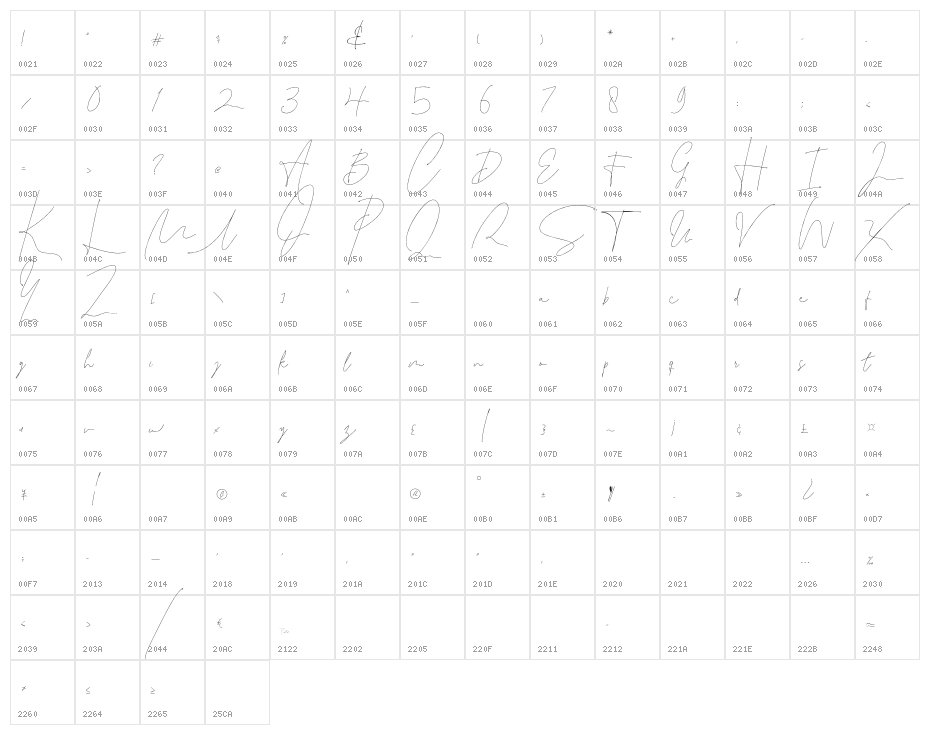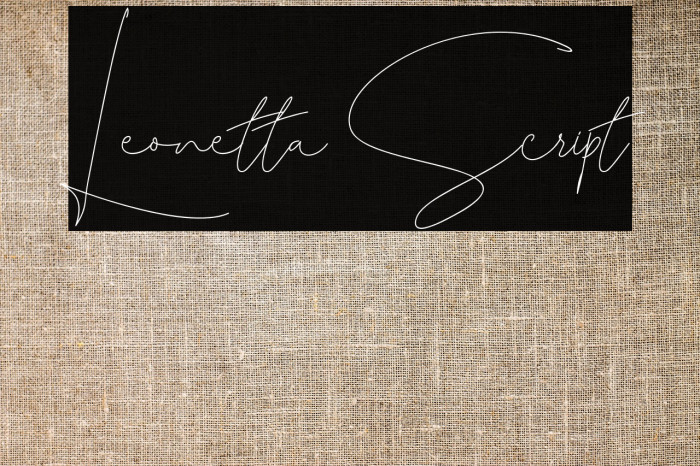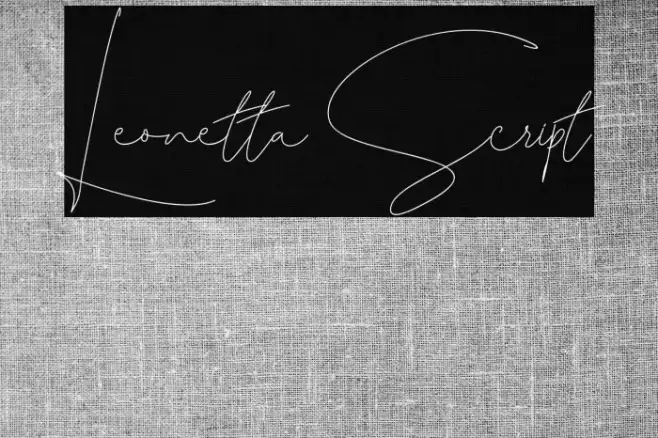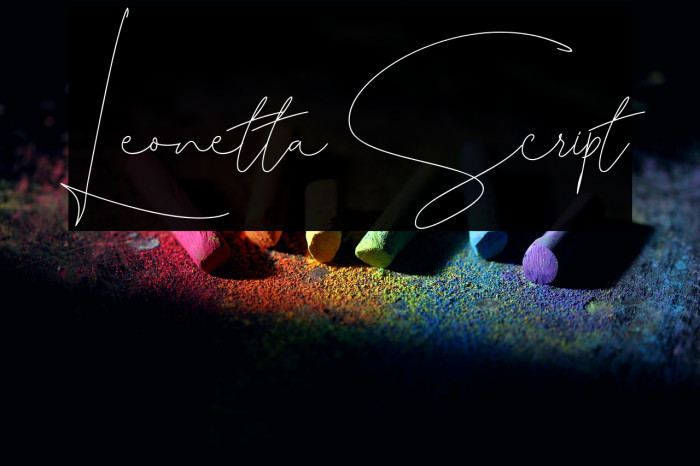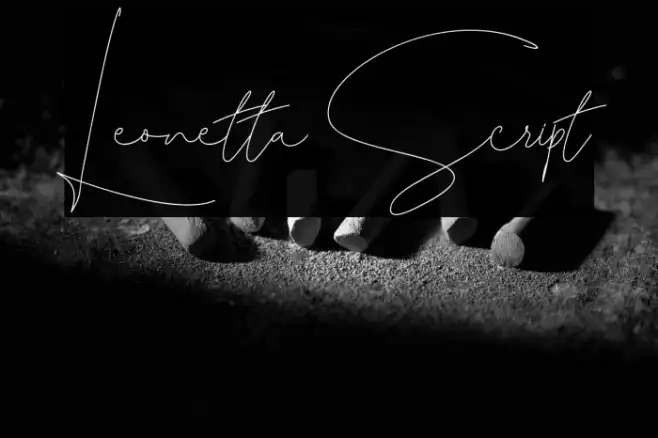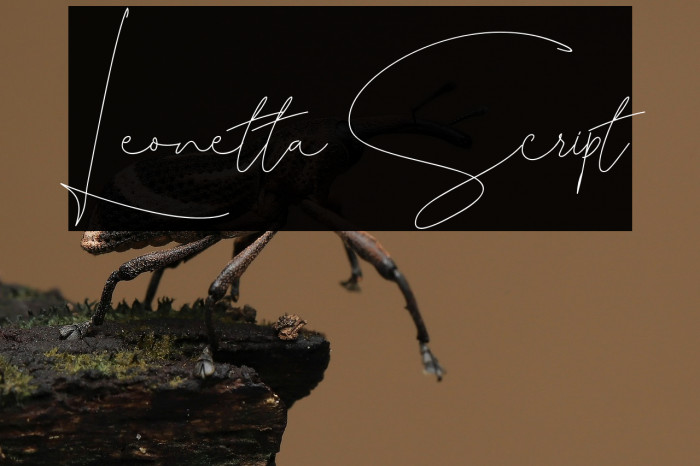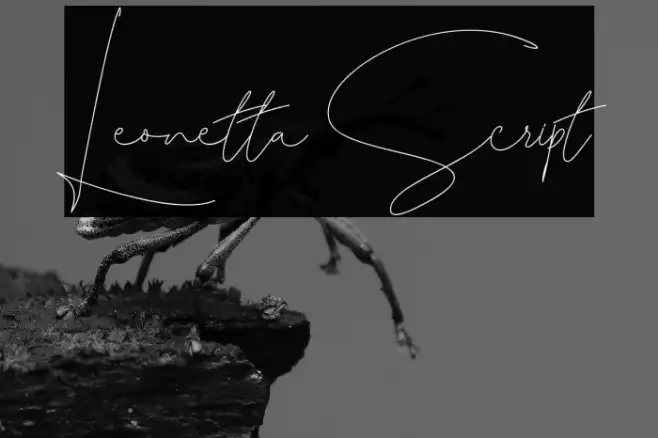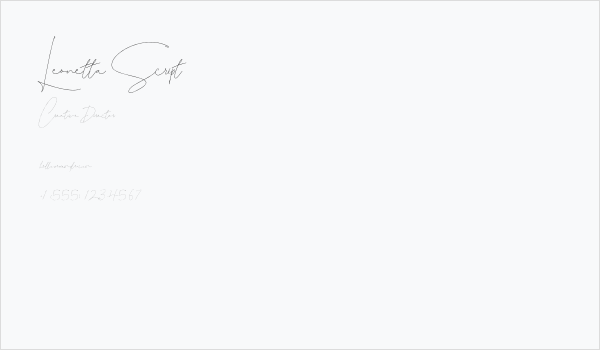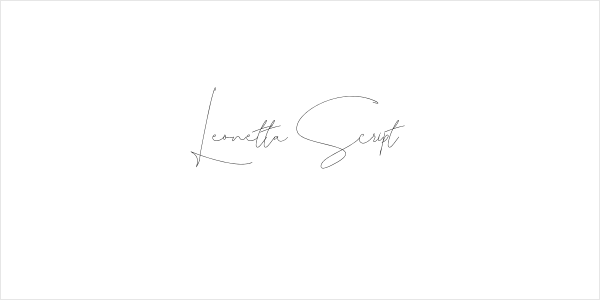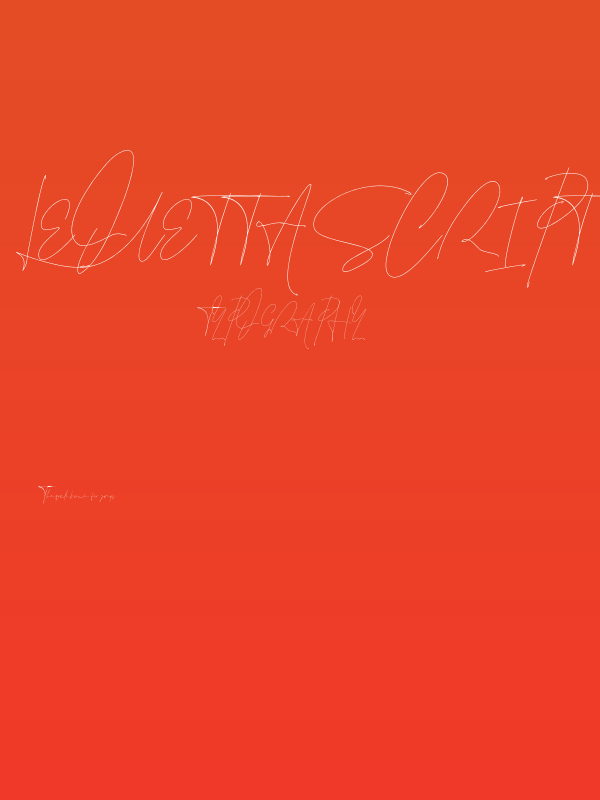
Leonetta Script Font
Leonetta Script Description
This font exudes a delicate and elegant handwritten style, characterized by its fluid and continuous strokes. The letters are connected in a way that mimics natural handwriting, providing a personal and intimate feel. The uppercase letters are tall and slender, while the lowercase letters maintain a consistent flow, enhancing readability. The numerals are distinct yet harmonize with the overall script style. Special characters are thoughtfully integrated, maintaining the font's cohesive aesthetic. Its airy and light appearance makes it suitable for projects that require a touch of sophistication and elegance.
| Proposed Projects | Ideal for wedding invitations, personal branding, greeting cards, and elegant stationery. |